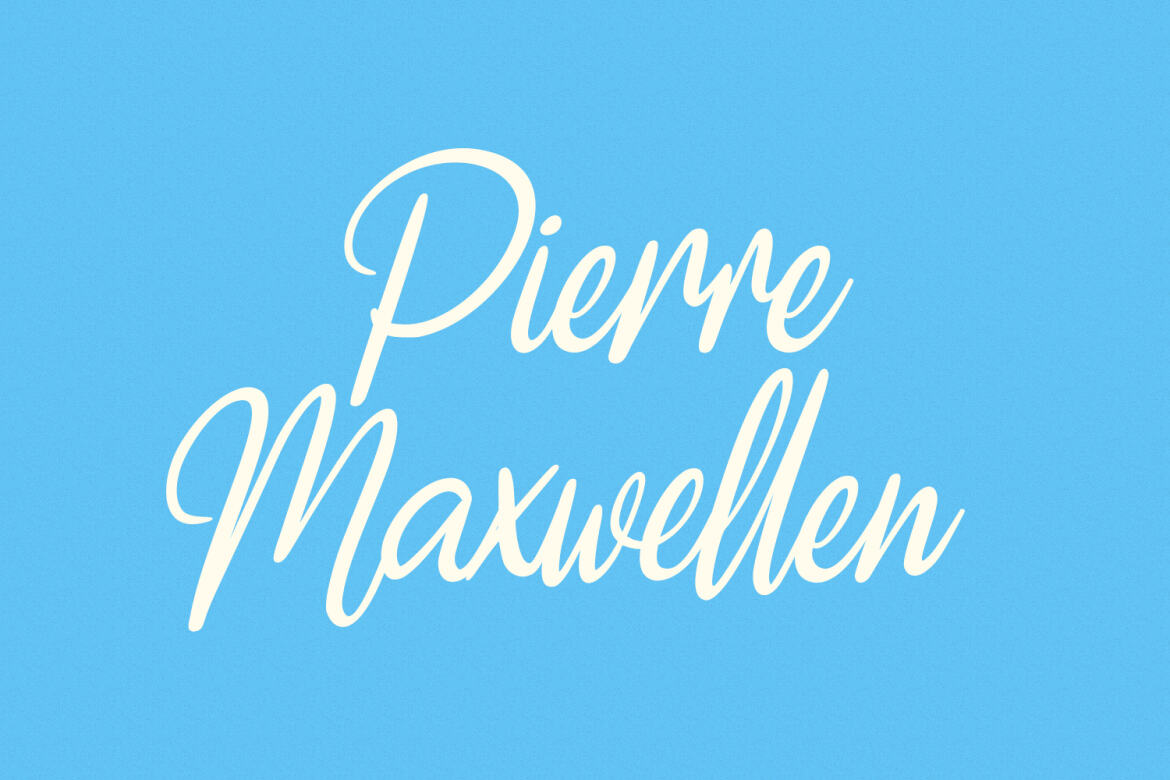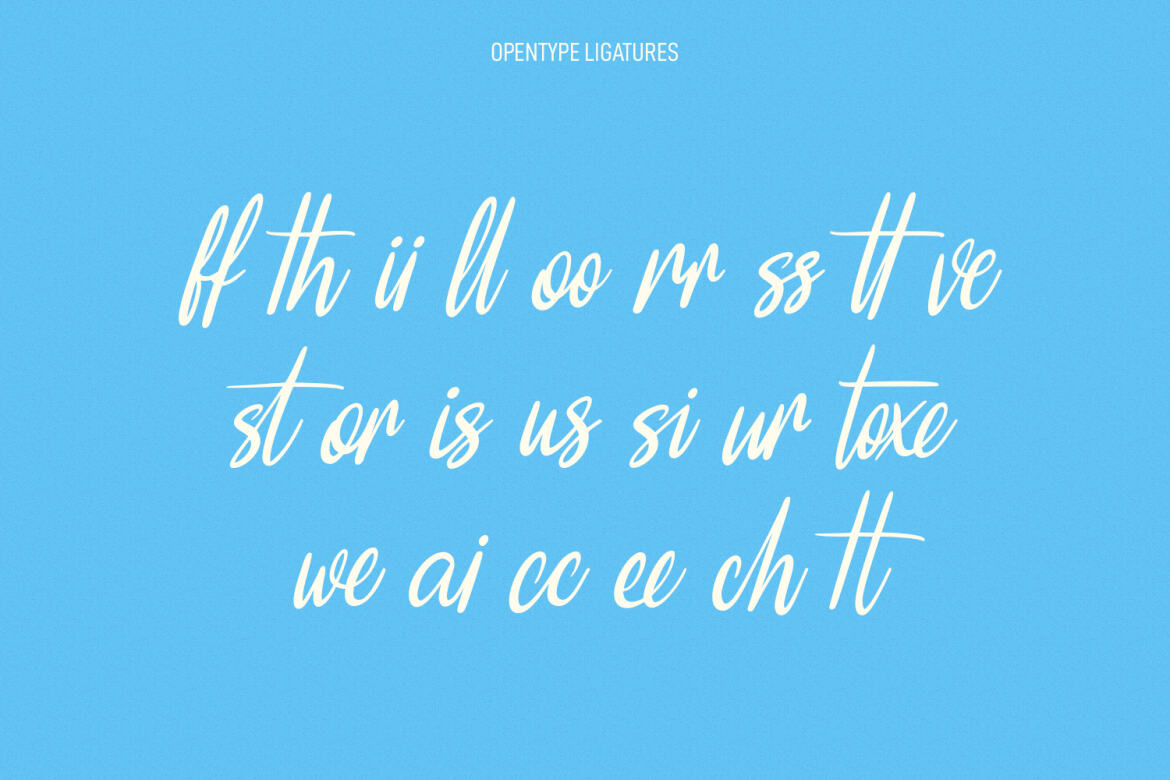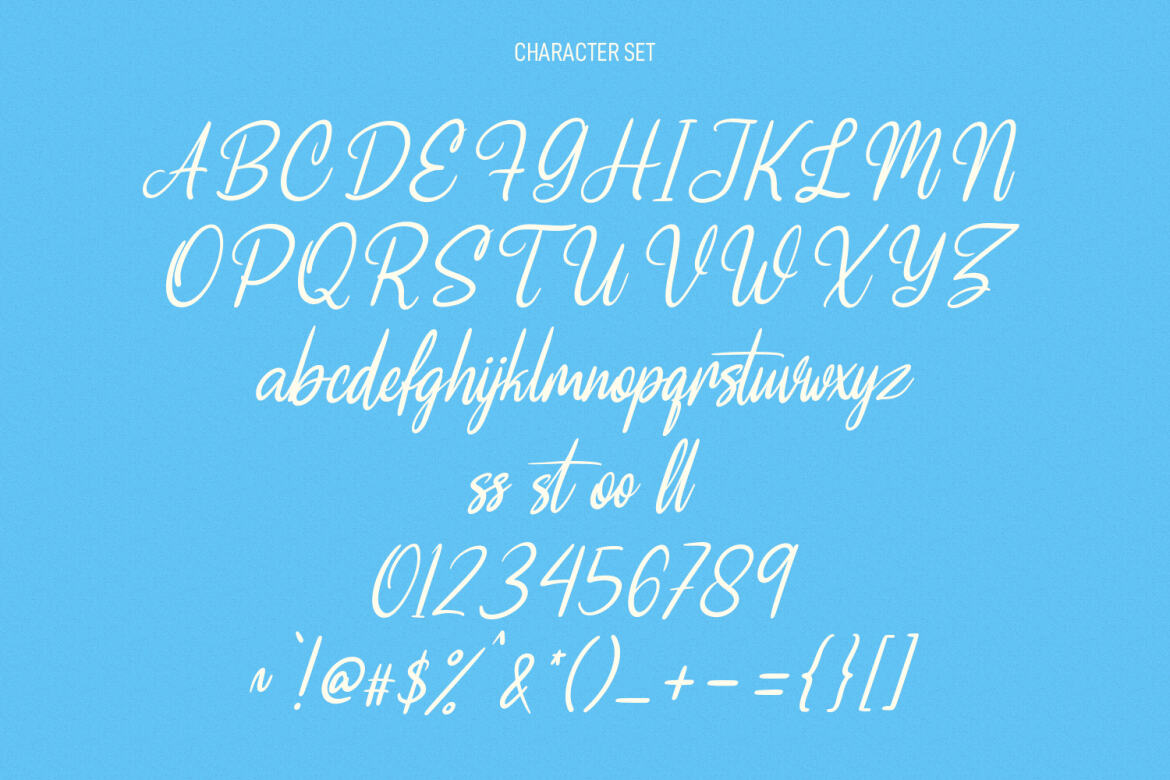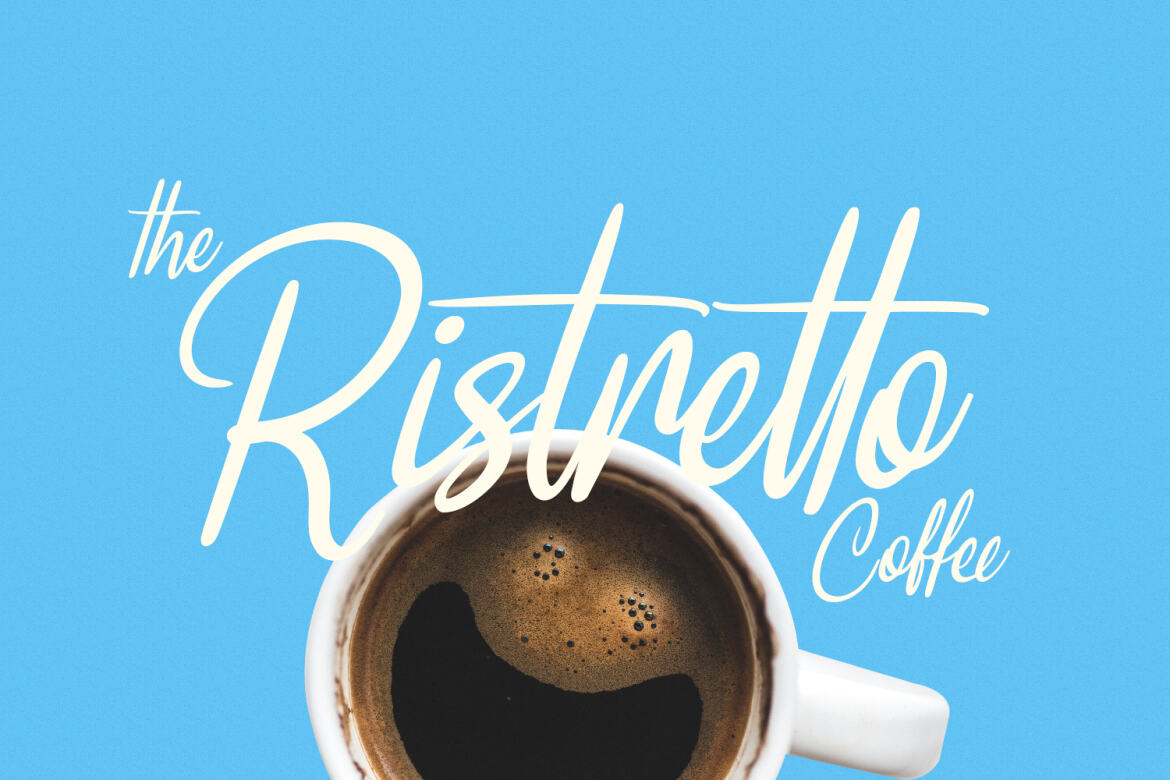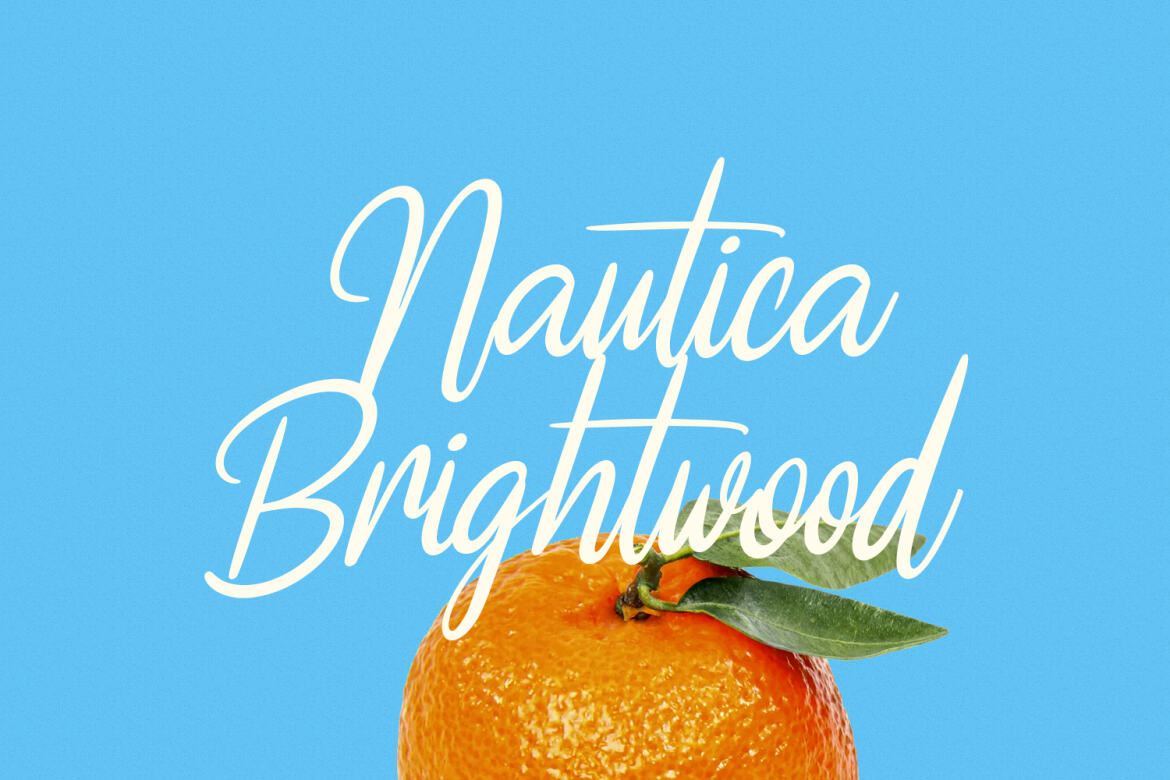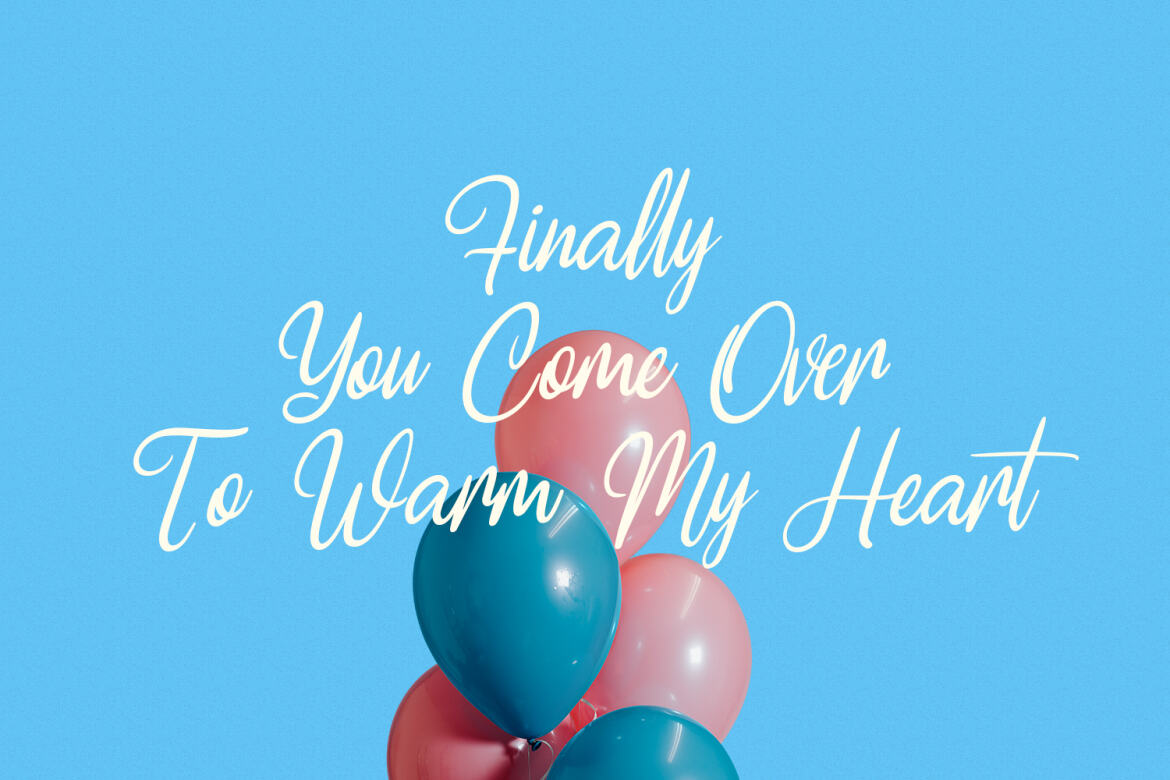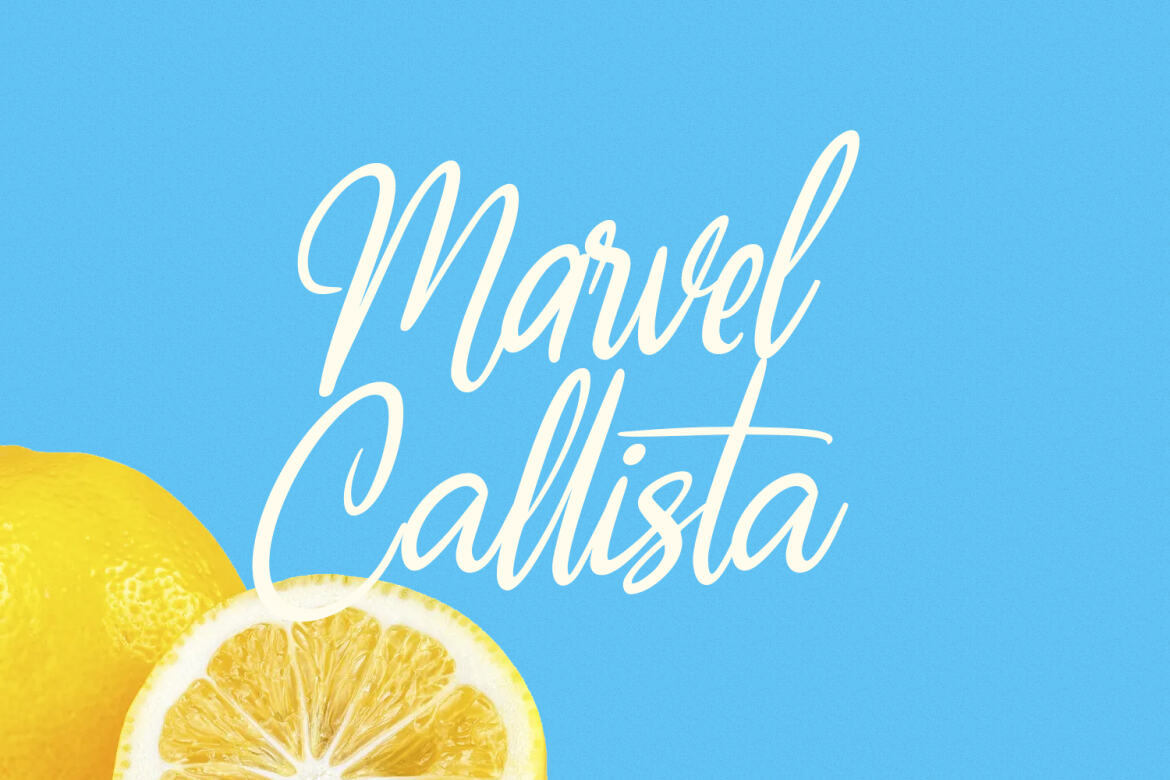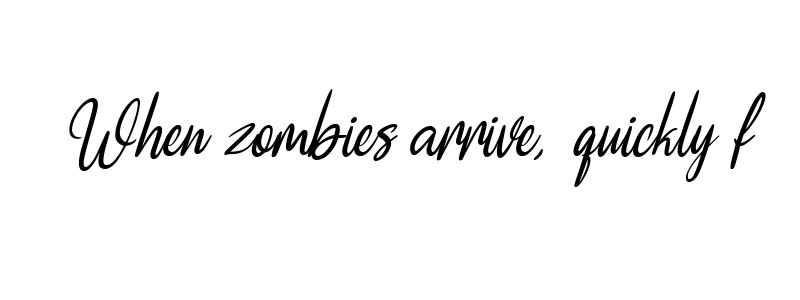
Frits Yello FREE Script Font
Frits Yello
Frits Yello is a casual handwritten script font. With medium contrast stroke, fun character with a bit of ligatures and alternates. To give you an extra creative work. Frits Yello font support multilingual more than 100+ language. This font is good for logo design, Social media, Movie Titles, Books Titles, a short text even a long text letter and good for your secondary text font with sans or serif. Make a stunning work with Frits Yello font.